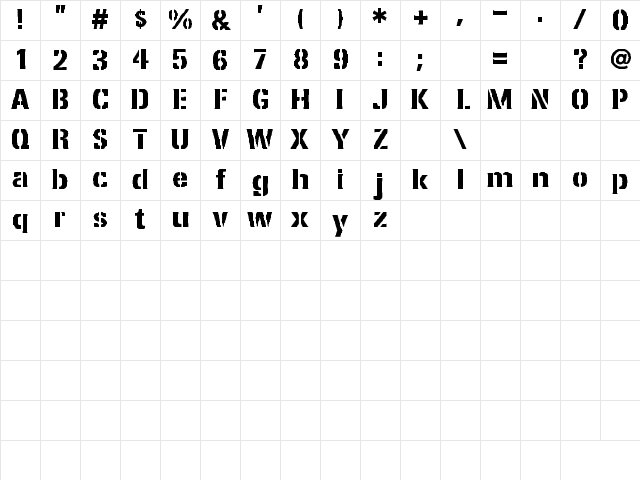
Complete 2Peas Frazzled Stencil 2Peas Frazzled Stencil glyph index. Displaying only characters natively supported by 2Peas Frazzled Stencil 2Peas Frazzled Stencil font.
2Peas Frazzled Stencil borrows the utilitarian aesthetic of stencil lettering, with its characteristic cutaways and no-frills construction lending an industrial edge.
Pro Tip: Use 2Peas Frazzled Stencil at large sizes on packaging, posters, or apparel where the stencil cutaways read clearly. Avoid small sizes where those gaps become visual noise.